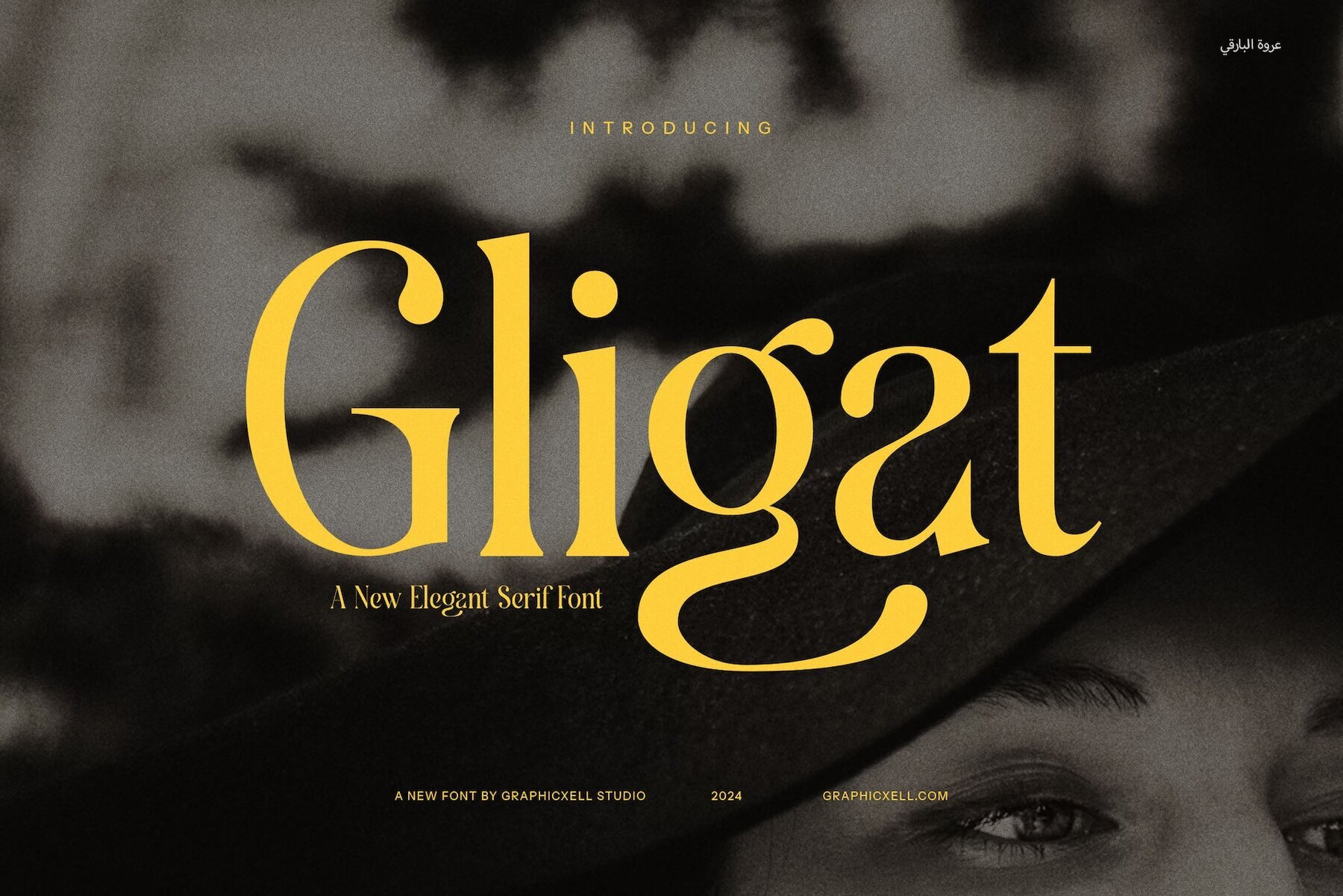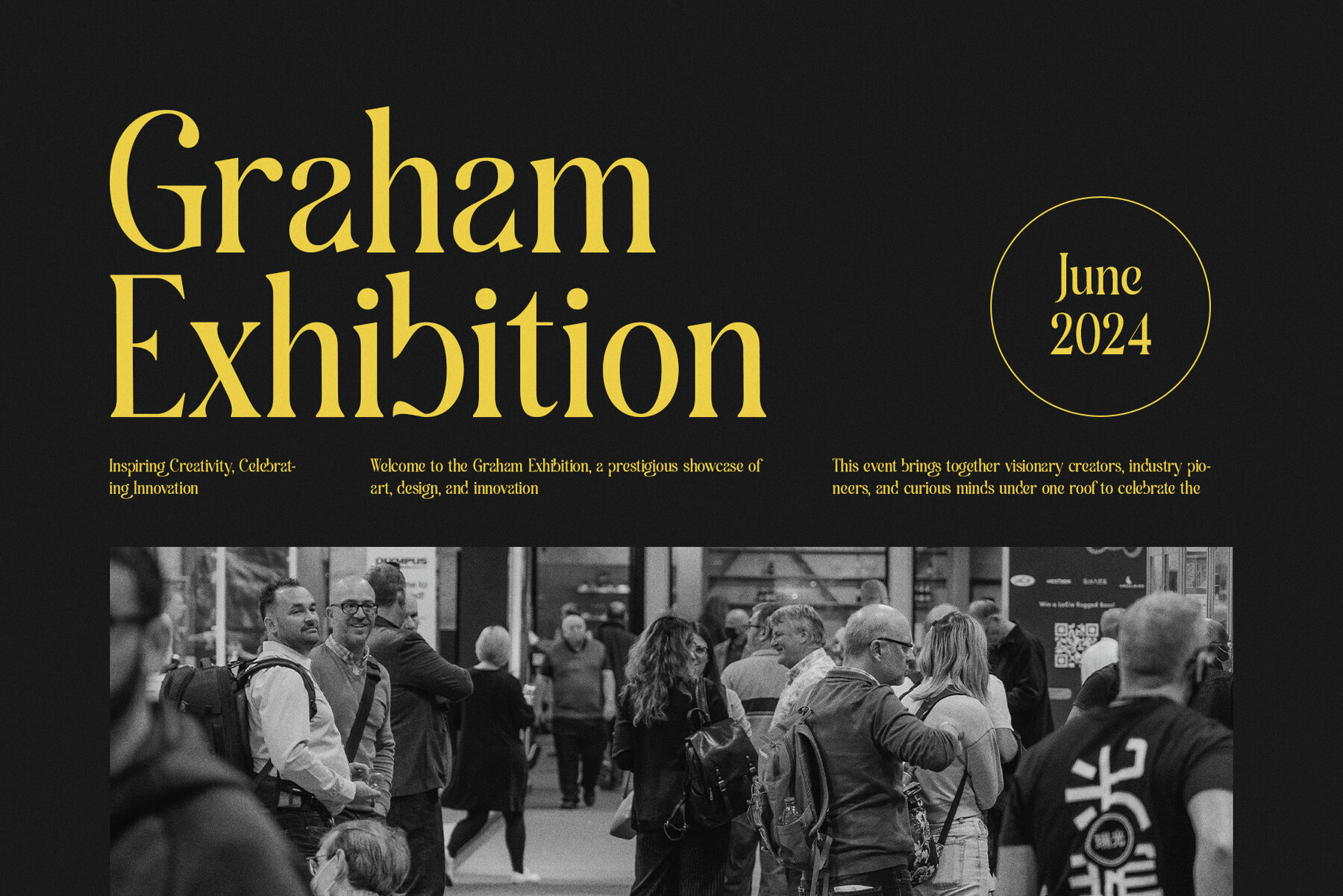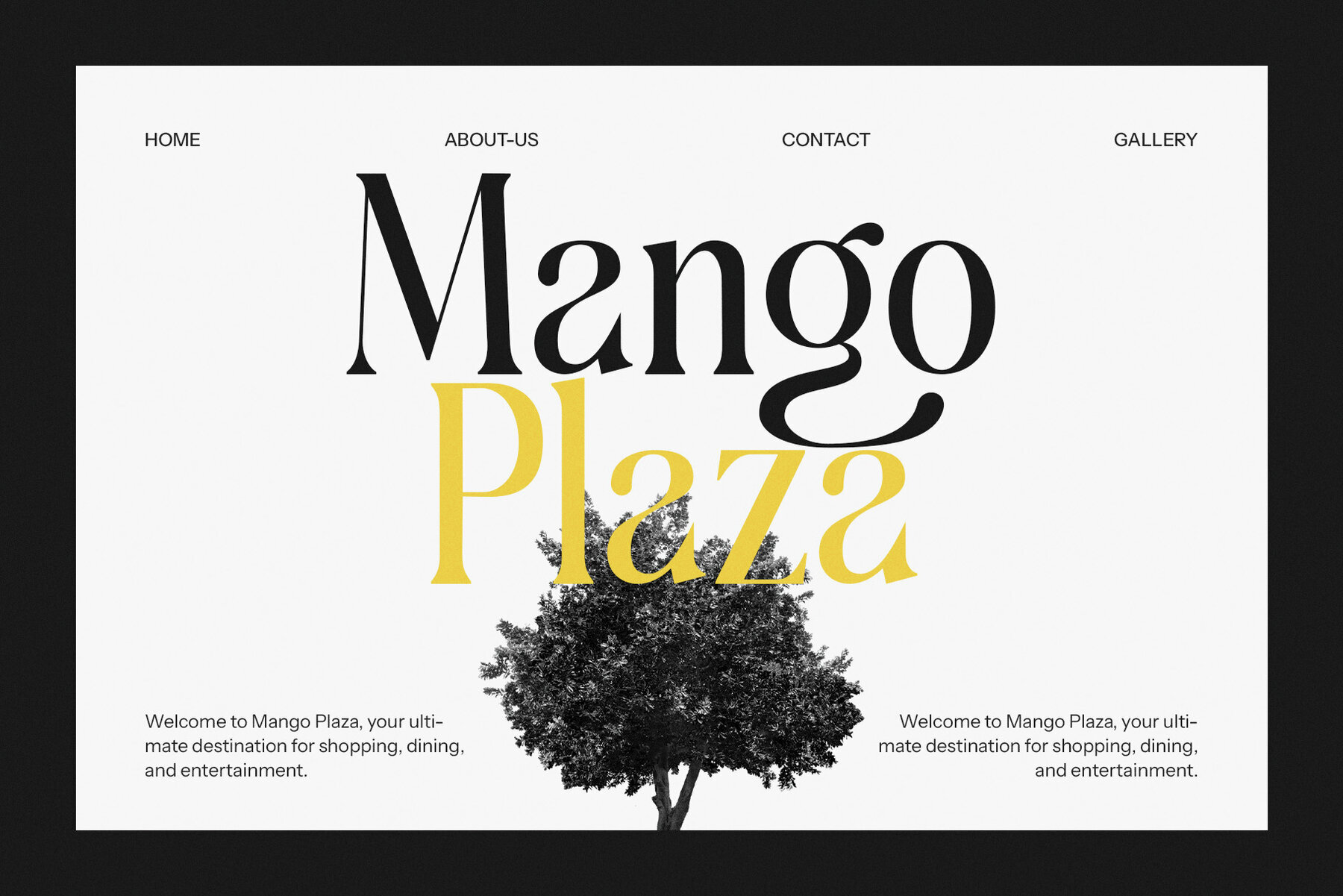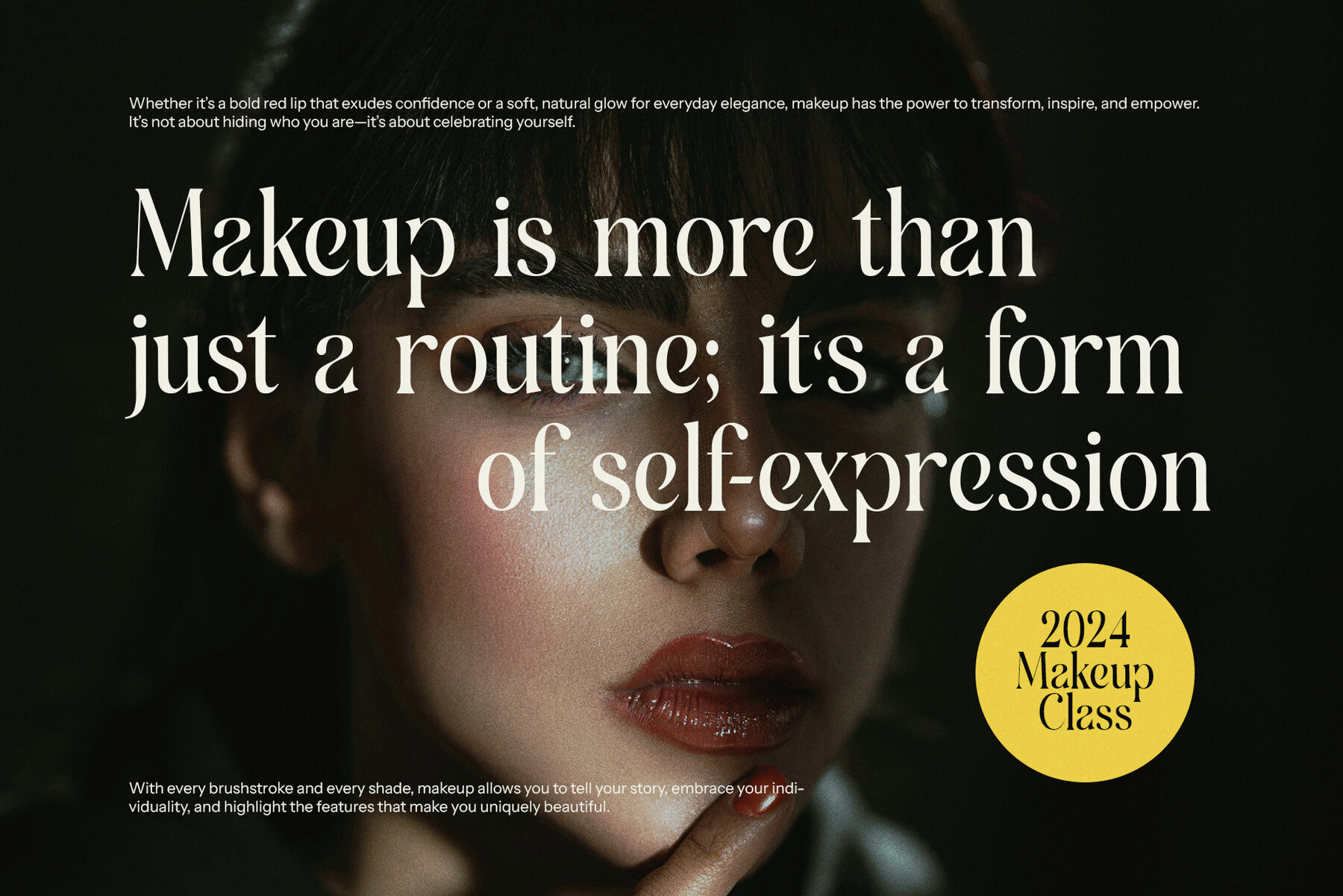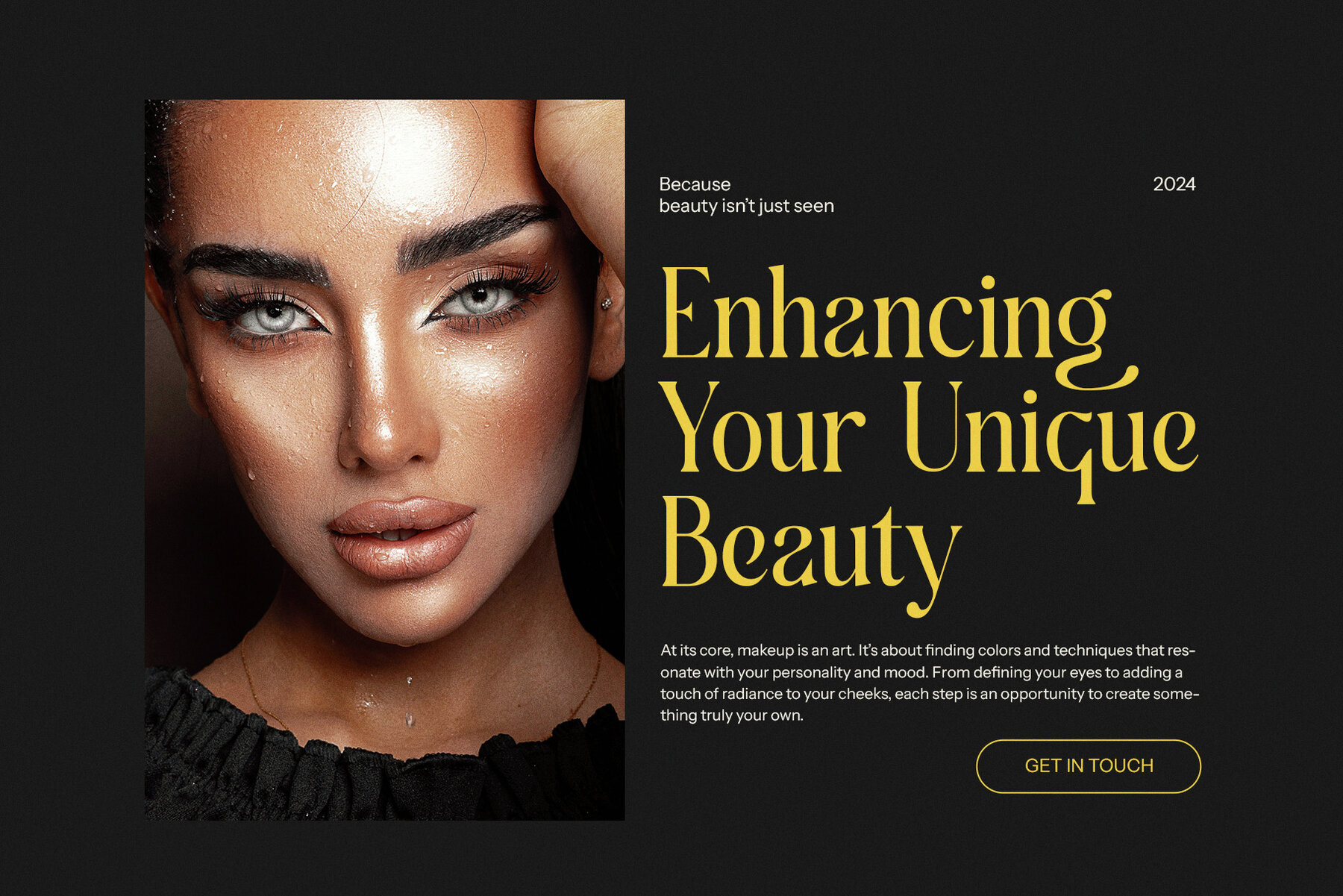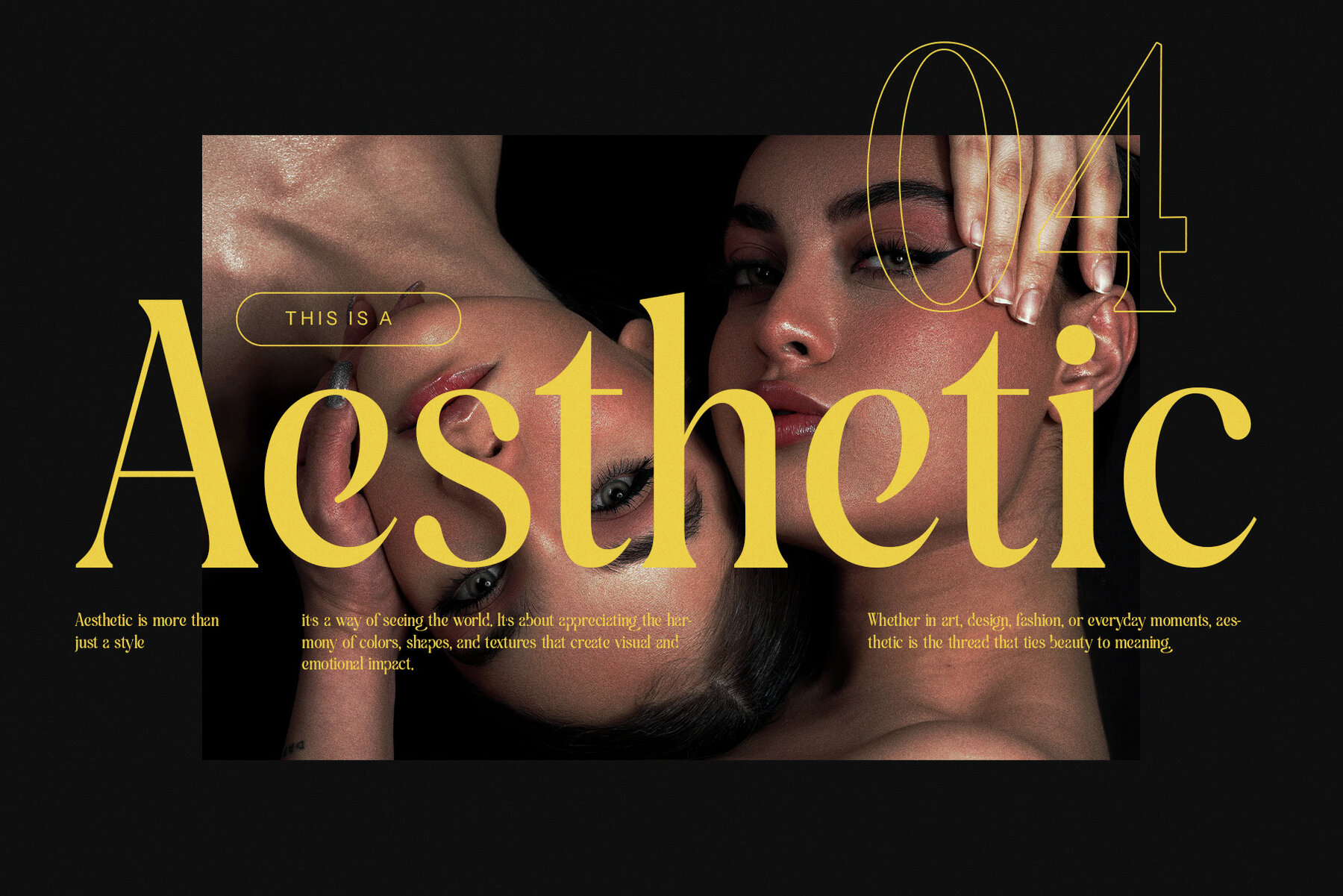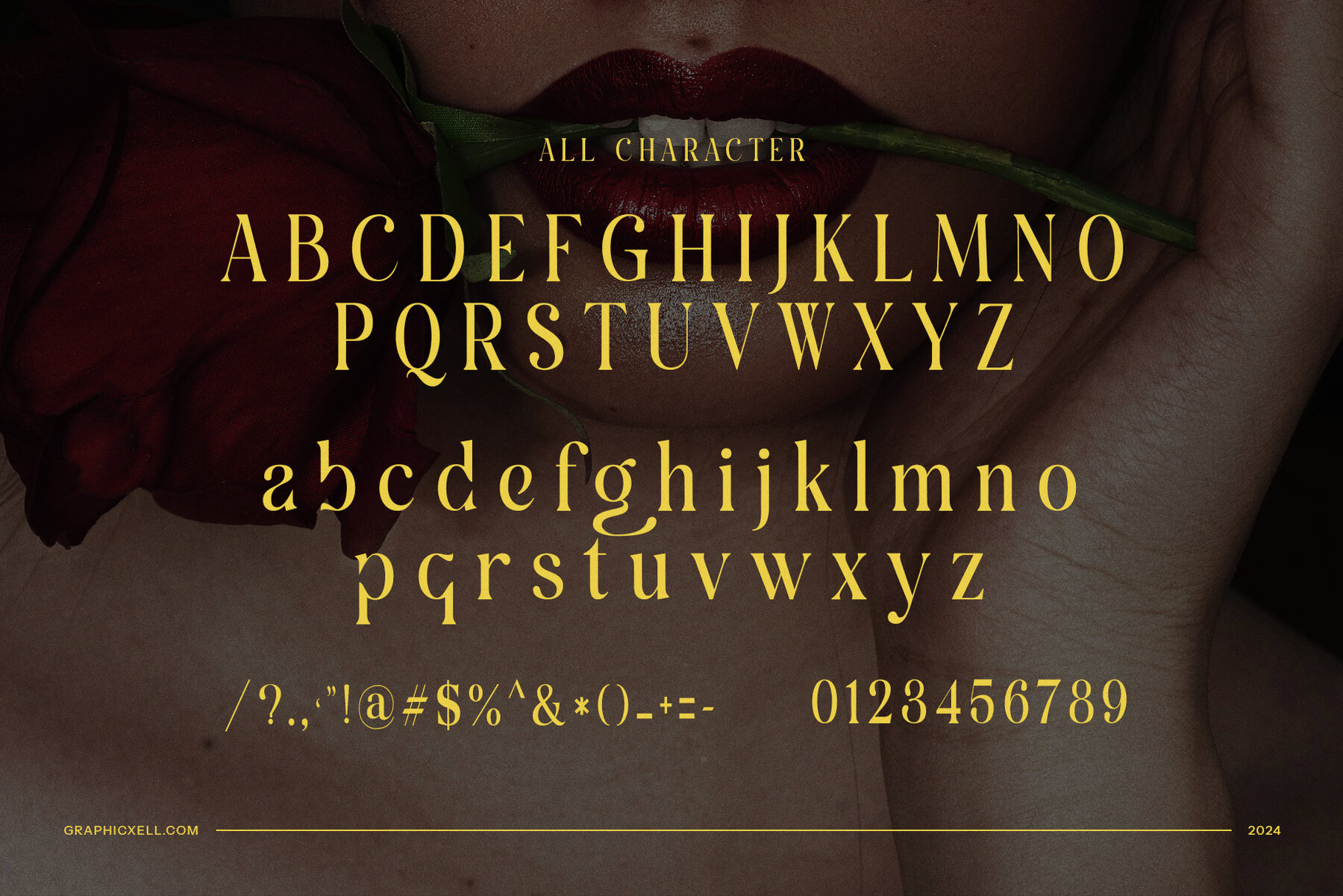
Gligat Font
Gligat
Gligat Elegant Serif Font is a refined typeface that seamlessly blends modern design with timeless sophistication. Its distinctive serifs and meticulously crafted letterforms enhance any design project, providing a touch of elegance. Ideal for a diverse range of applications, from logos to brand identities, Gligat offers a sleek, stylish appeal that suits upscale branding perfectly. Its well-balanced proportions and elegant details make it an excellent choice for creating impactful logos, business cards, and product packaging.
The versatility of Gligat extends to various platforms, making it suitable for websites, magazines, brochures, and advertisements where both style and readability are paramount. It is particularly effective in industries such as fashion, lifestyle, and luxury markets, where a polished and refined aesthetic is essential. This typeface shines in boutique branding, food packaging, and other high-end business designs, thanks to its clean, sophisticated look. Whether you're crafting an elegant magazine layout or an eye-catching advertisement, Gligat brings a level of class and sophistication that enhances the entire design.
Designed for both print and digital mediums, Gligat ensures that your message is communicated with clarity and elegance across all platforms. With its combination of modernity, sophistication, and versatility, Gligat is the perfect font choice to capture attention and infuse your designs with timeless style.